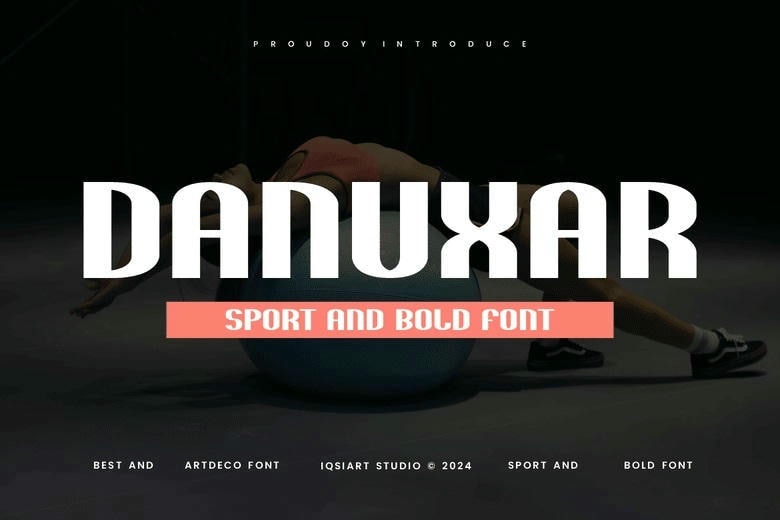
Danuxar Font
Danuxar can be described as a very extrovert and athletic font with highly thick letters. This one however has a more contemporary feel to it which makes it good for headlines, logos and everything that needs the energy factor. The clarity and the un-camouflaged lines gives it an aura of poised athletic look.
Danuxar Display Font